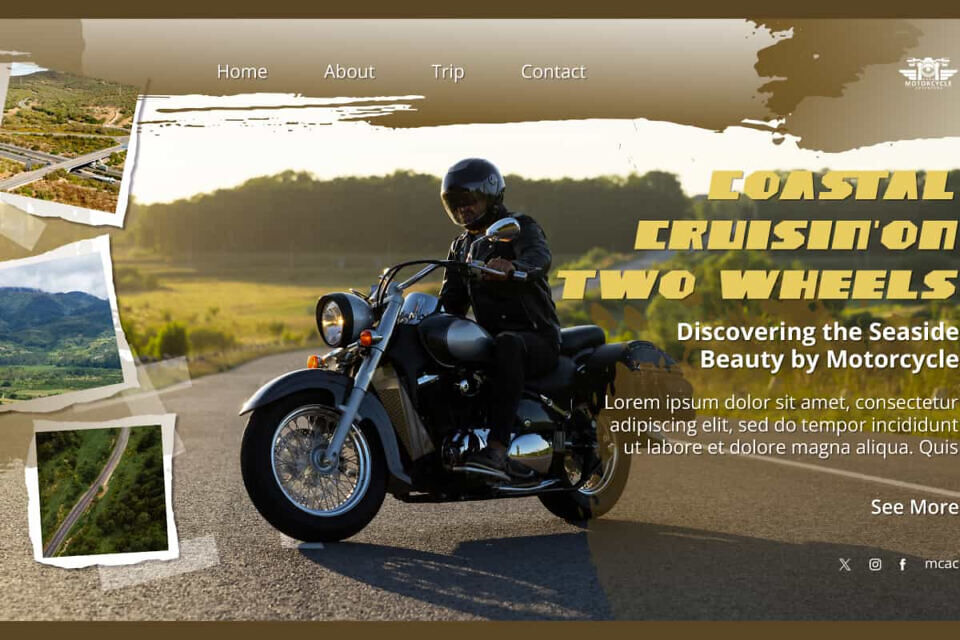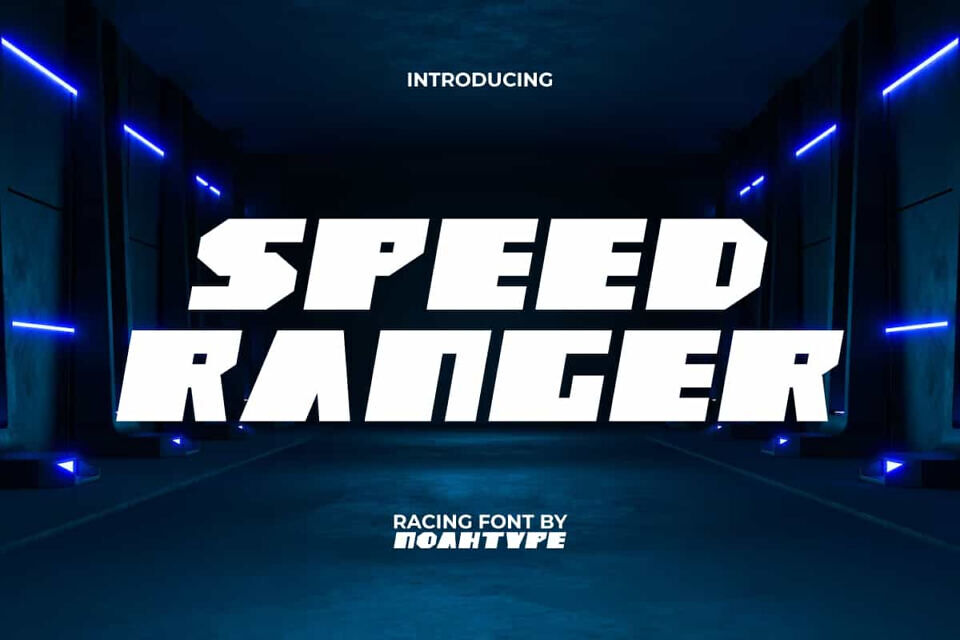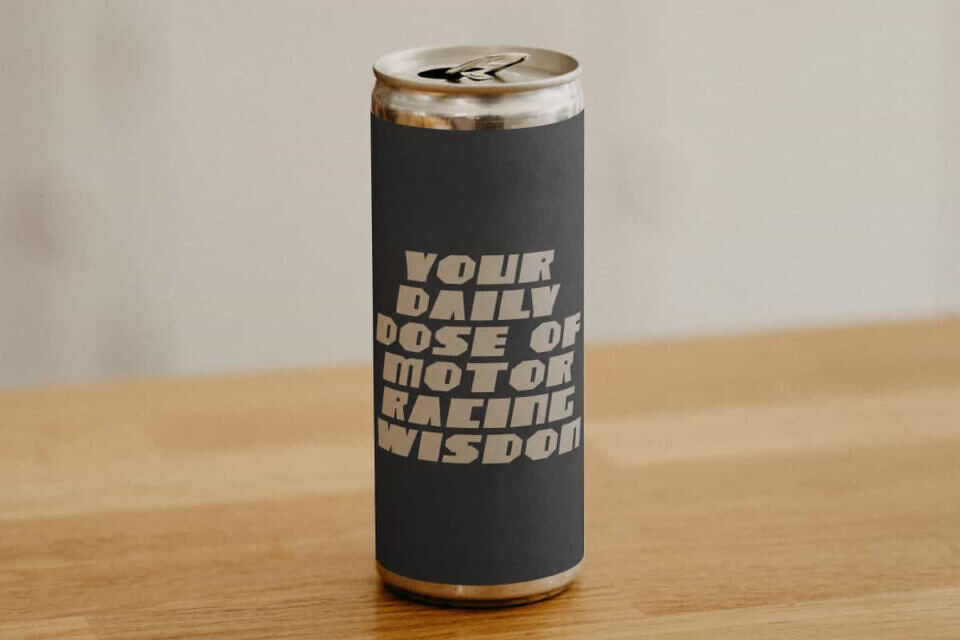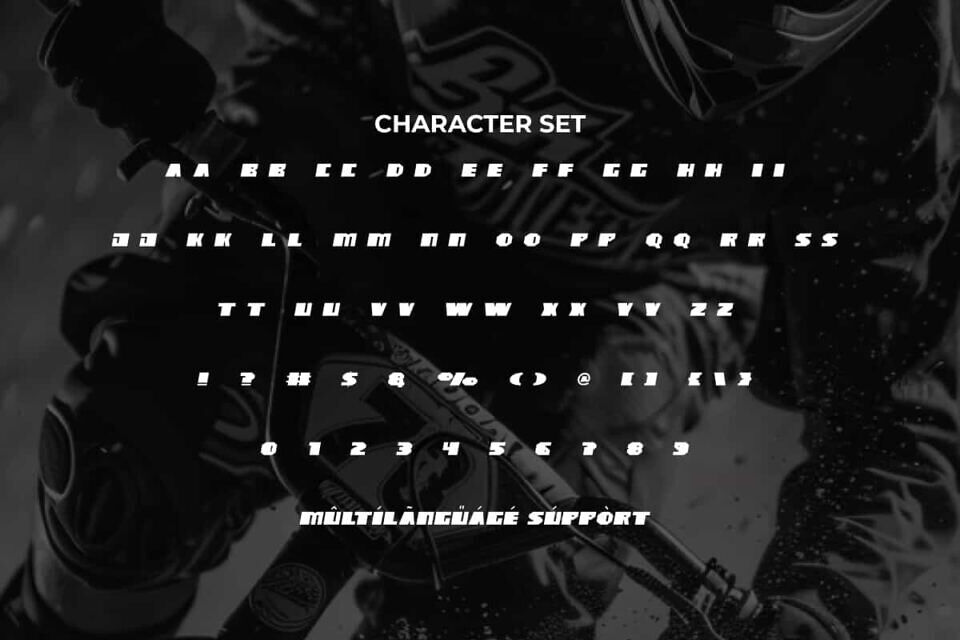
Speed Ranger Font
Speed Ranger Font is a unique speedy racing font that is suitable for sports, games or even a tech vibes. This font has a boxy character shape so it can make the design look unique. This font will be suitable for a lot of projects, such as custom design, stationery, label, poster, signage, catalog, cover, quotes, website, and more!
Speed Ranger Font includes full set of Uppercase and Lowercase Basic Characters, Numerals and Punctuation. This font has a cool vibes that will make you believe it is the perfect choice for many industries, such as fashion, sports, racing, game, automotive, advertisement, café, event organizer, printing, publishing, etc.
Designed by: Noah Type